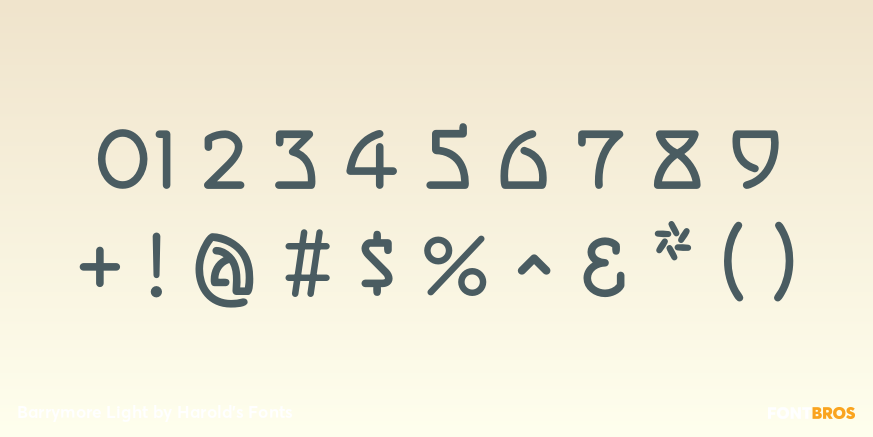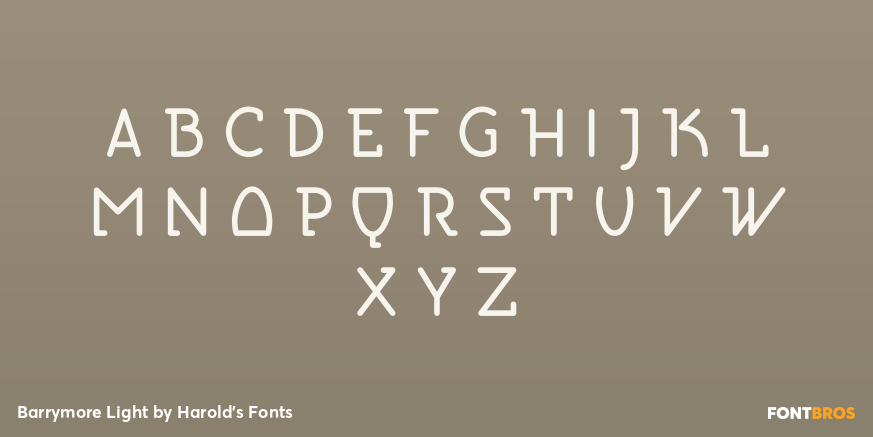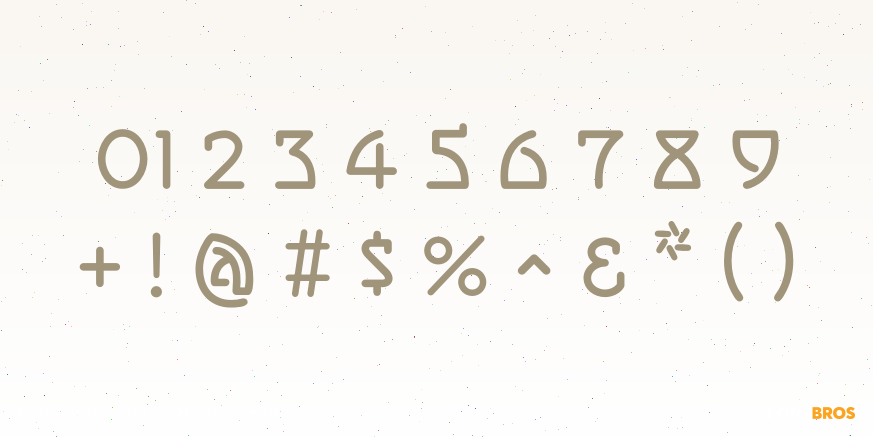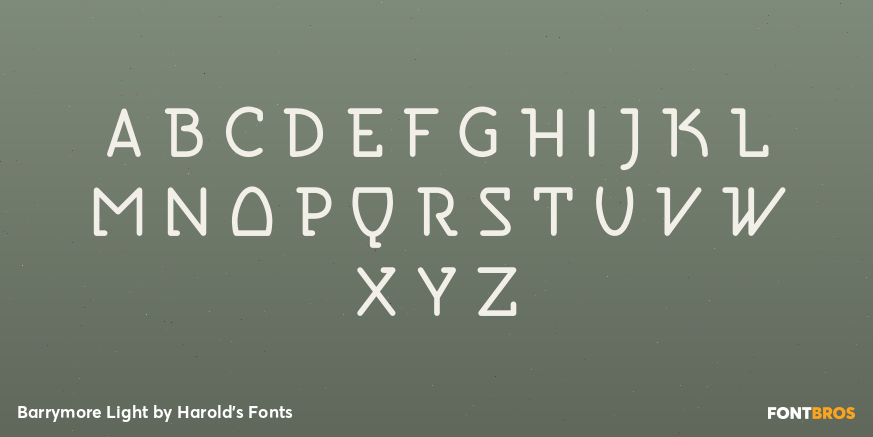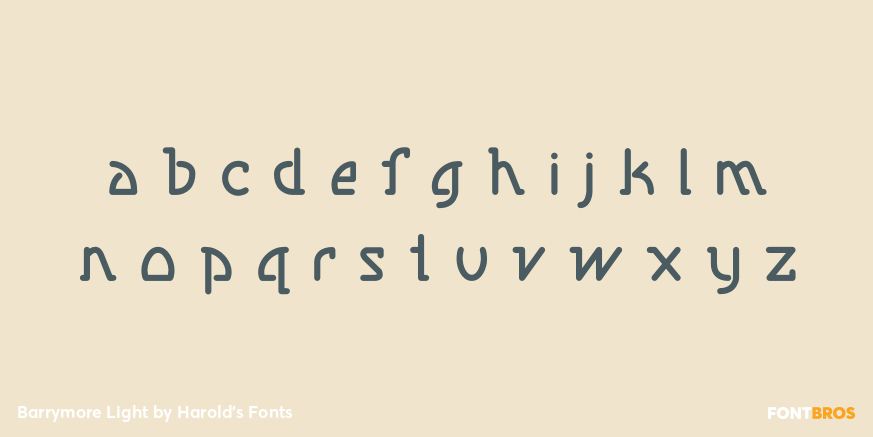
Barrymore Light
BARRYMORE is a sleek and stylish geometric font with an Art Deco influence. With rounded ends that suggest neon tubes, BARRYMORE comes in 3 weights. Inspired by vintage Pepsodent packaging, my font was previously called Sanitary.